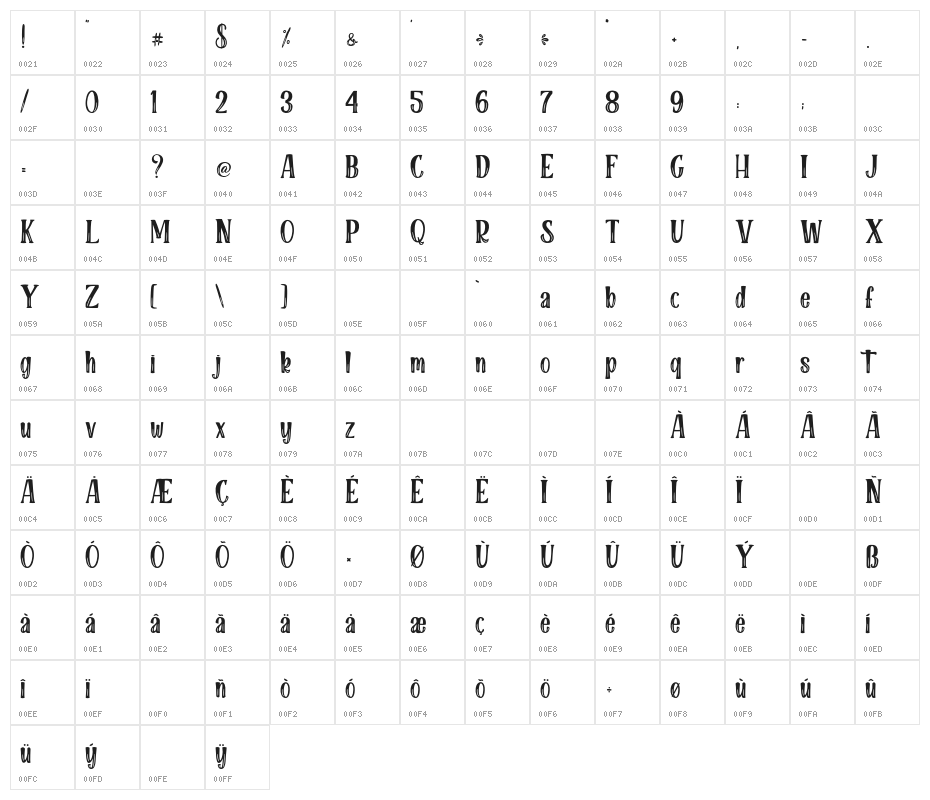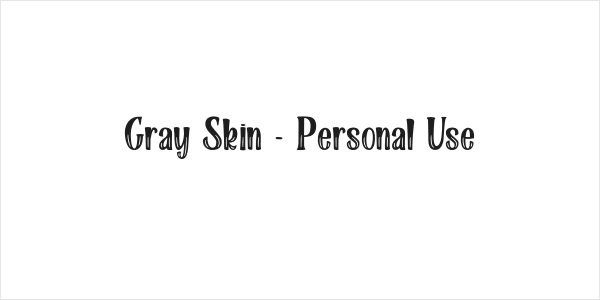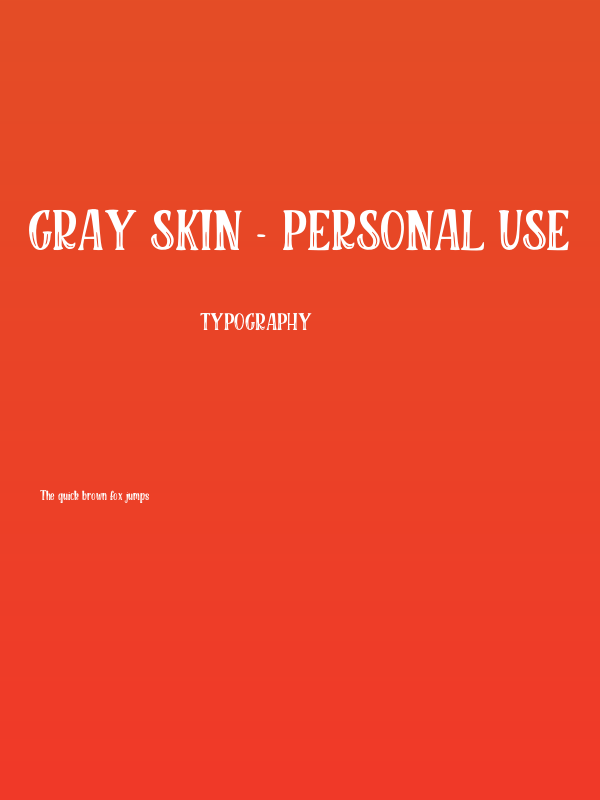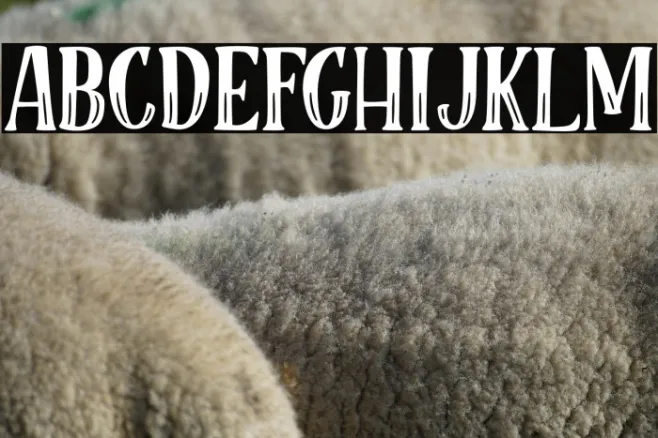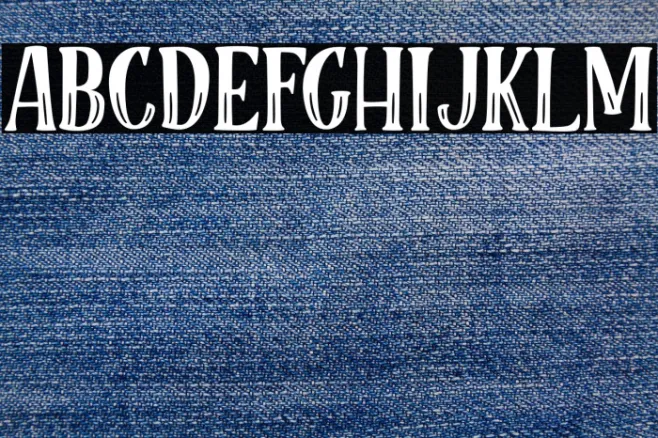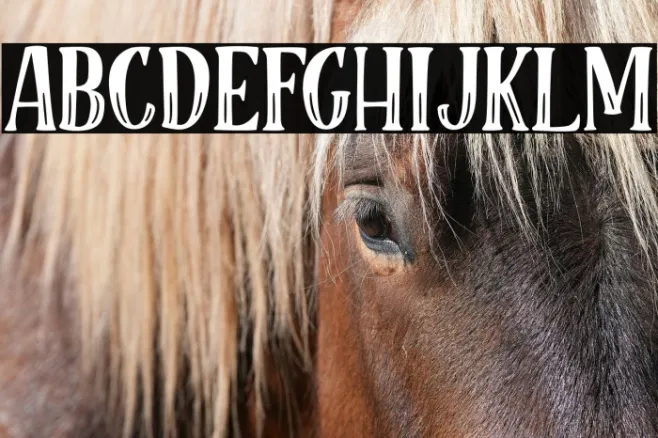
Gray Skin - Personal Use Font
Gray Skin - Personal Use Description
This font features a playful and whimsical style with exaggerated curves and strokes, giving it a lively and dynamic appearance. The uppercase letters are bold and slightly condensed, with unique serifs that add character. The lowercase letters maintain a consistent style, with some letters having a slightly slanted orientation, enhancing the font's quirky nature. The numbers are bold and rounded, matching the overall playful theme. Special characters are creatively designed, adding to the font's decorative appeal. This font is ideal for projects that require a fun and engaging look.